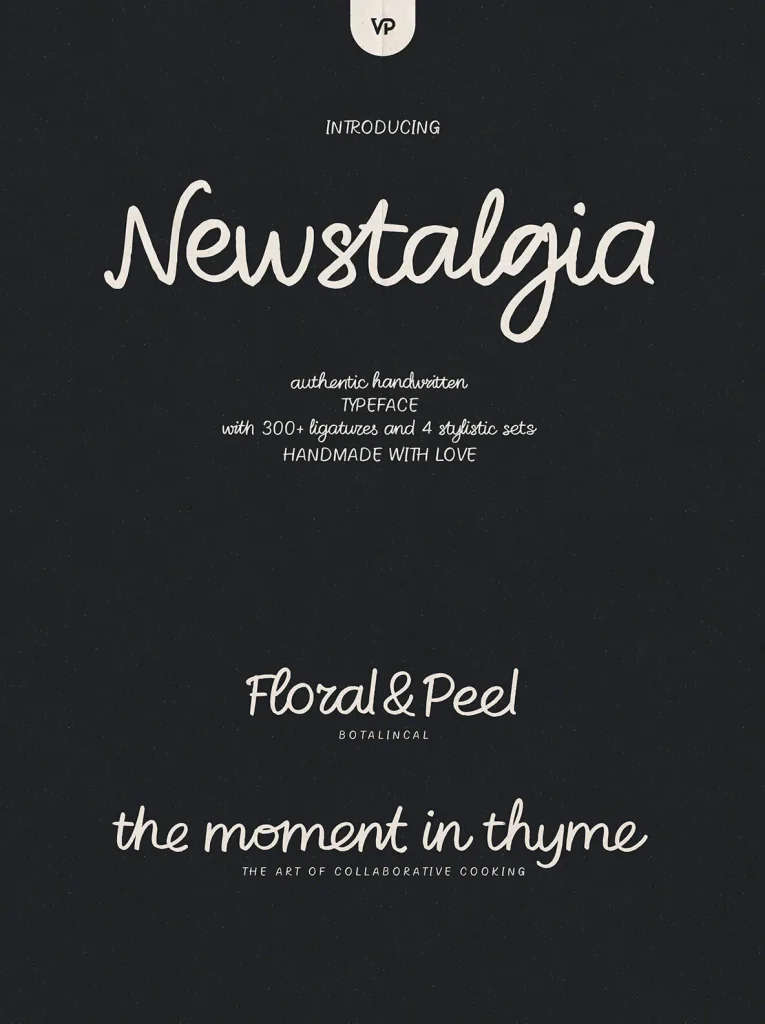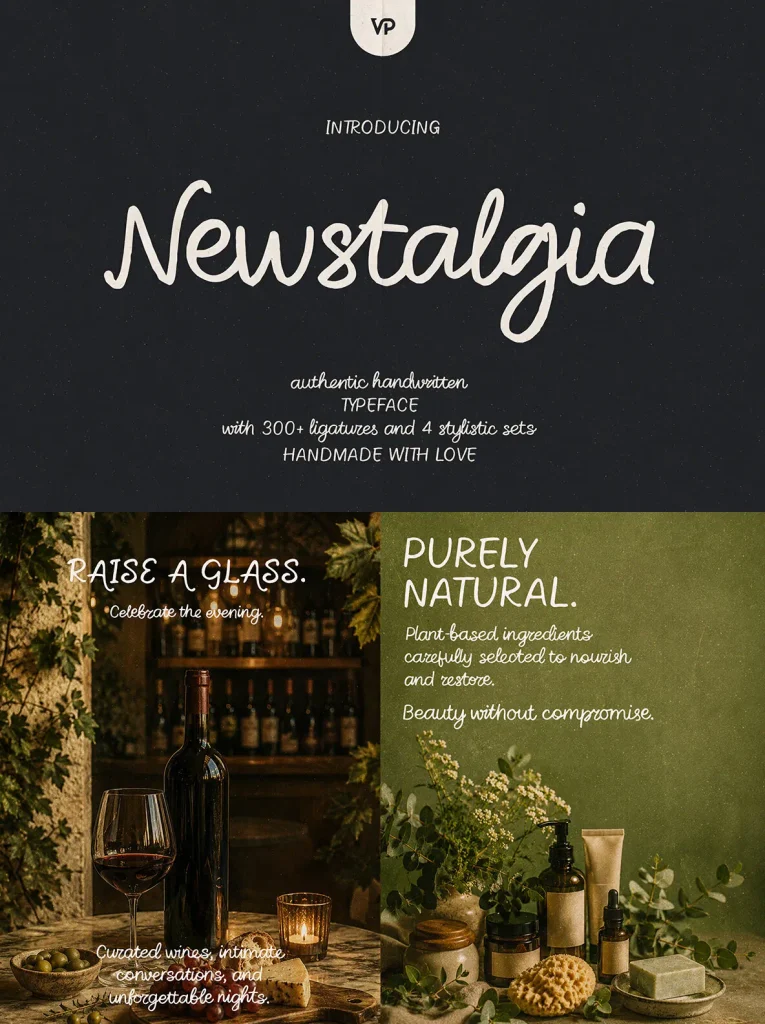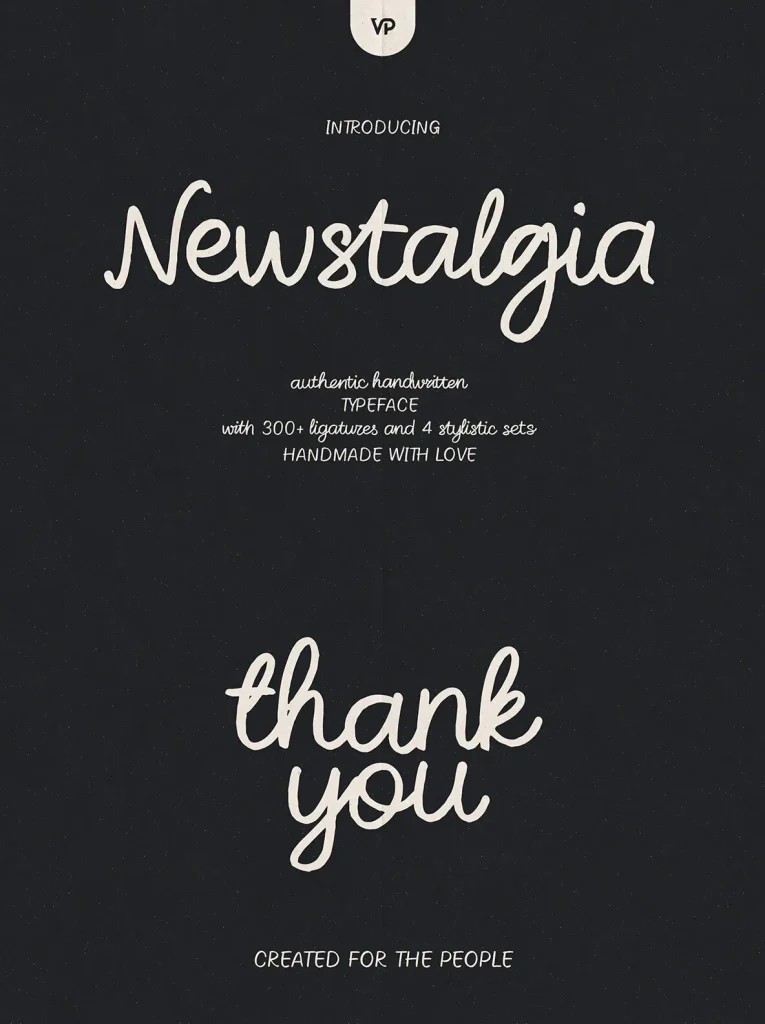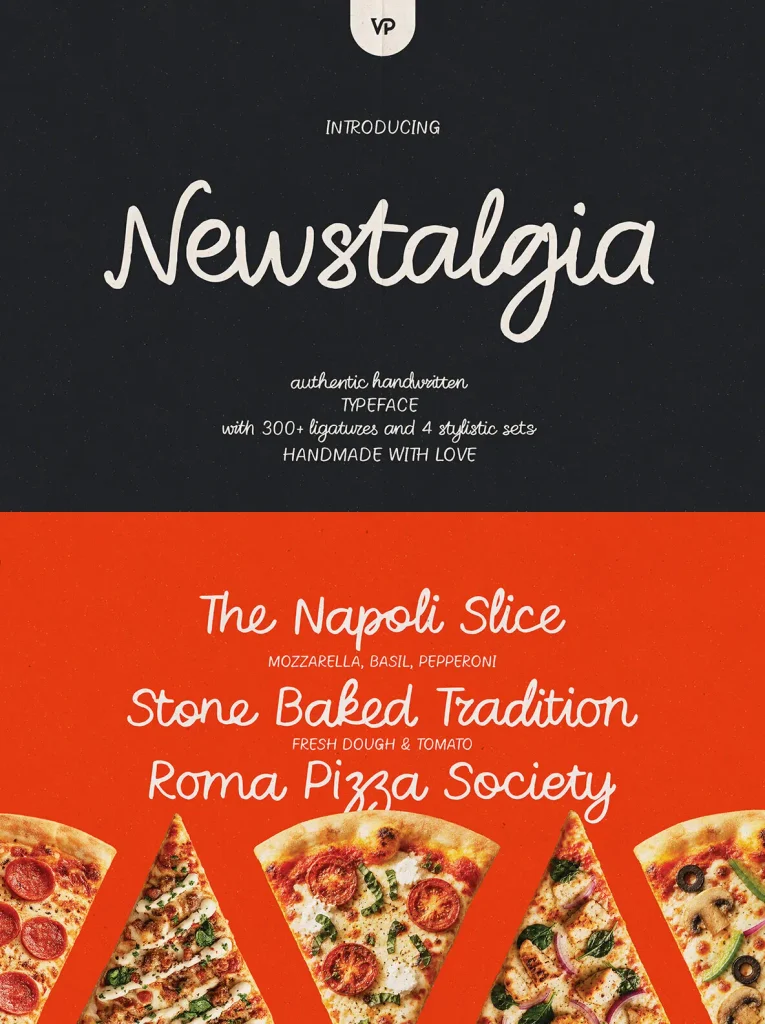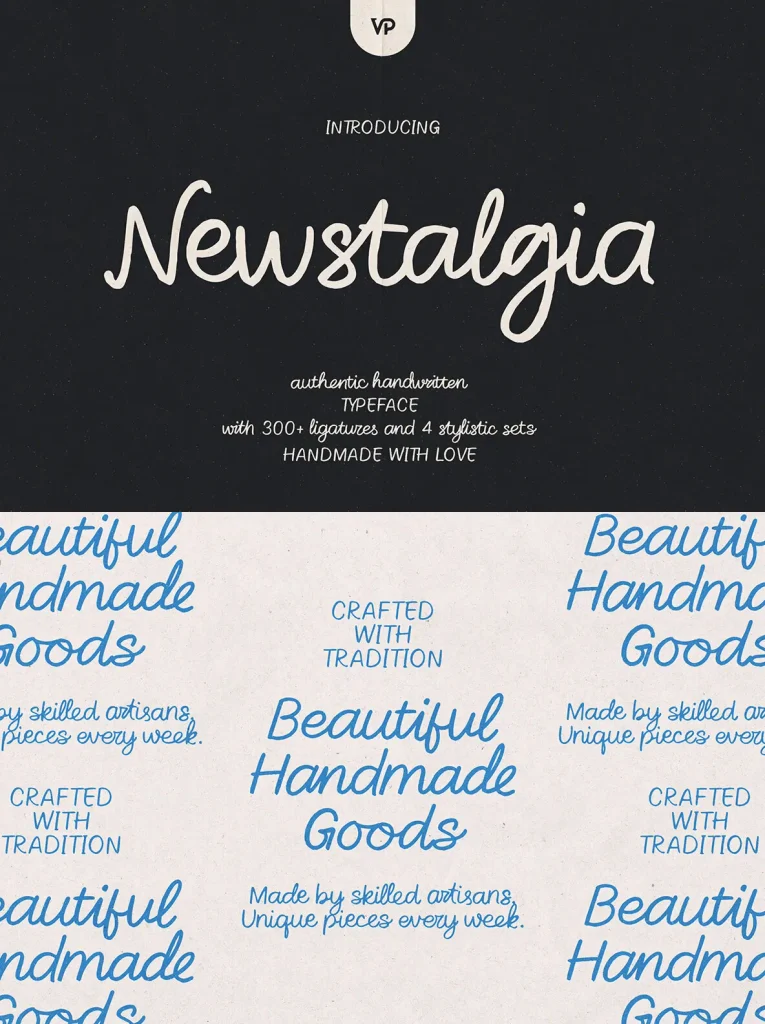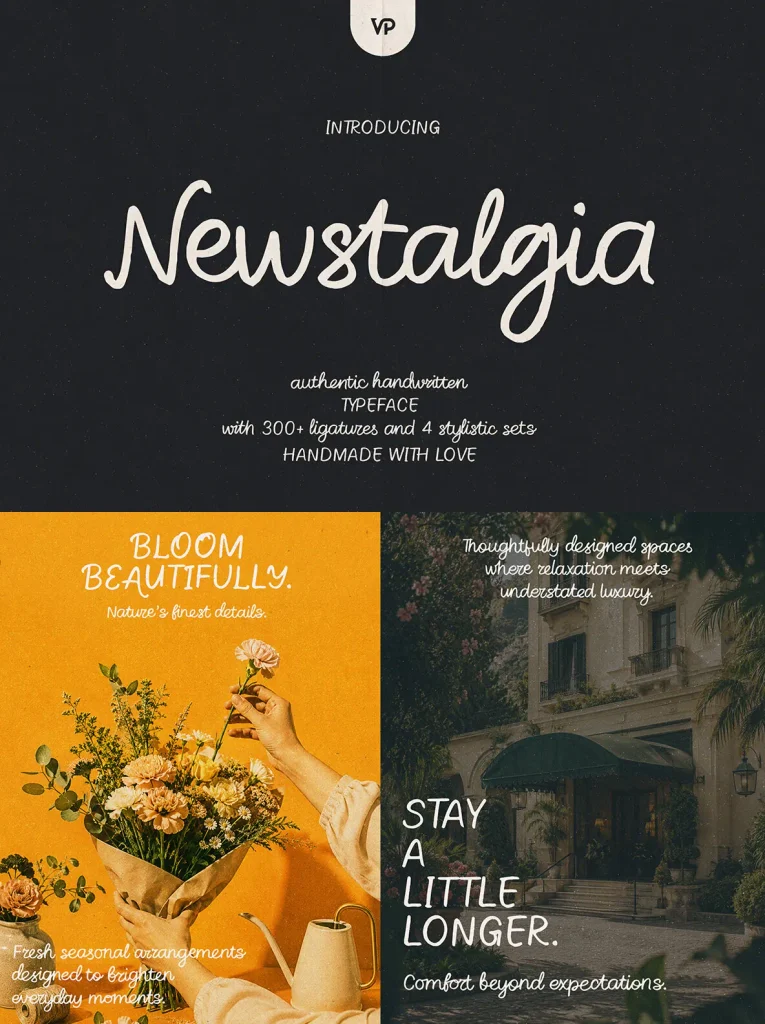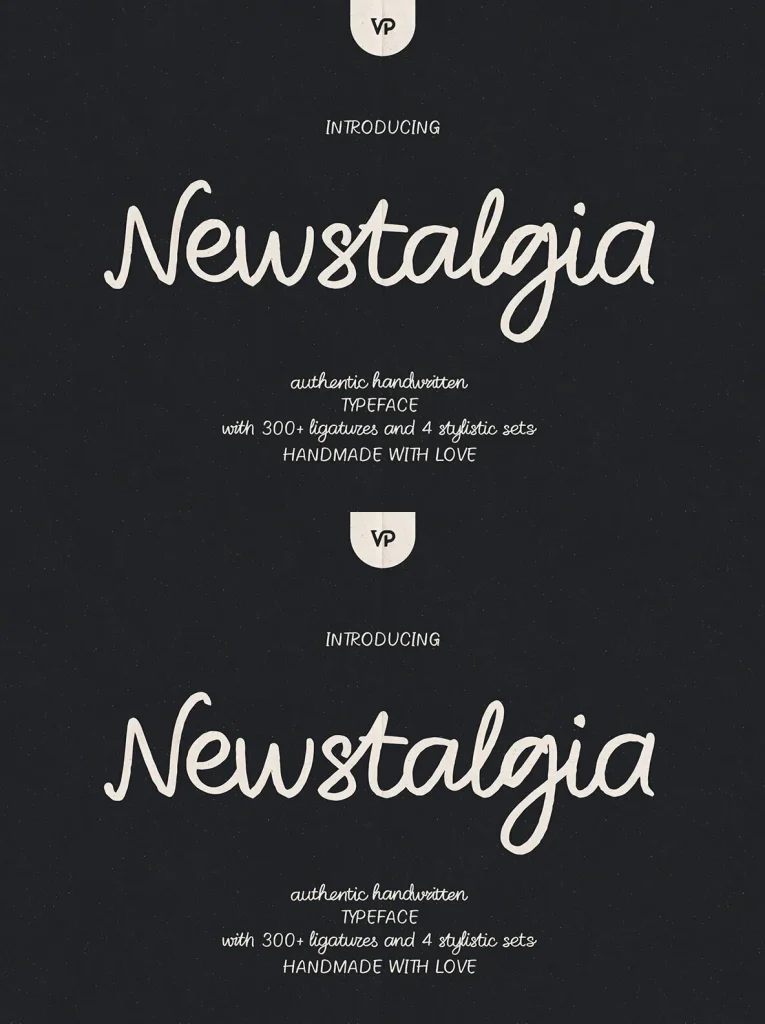
Newstalgia — Handwritten Warmth with Memory
Meet Newstalgia, an authentic handwritten typeface with the warmth, charm, and personality of real handwriting. Inspired by handwritten notes, vintage journals, cozy cafés, boutique branding, and nostalgic storytelling, Newstalgia gives each project a naturally human tone.
Built with careful attention to detail, this versatile script balances effortless readability with organic imperfections. It suits logos, packaging, social media content, book covers, invitations, restaurant menus, and lifestyle branding. The result is a timeless handwritten aesthetic that feels both modern and nostalgic.
Newstalgia includes 300+ handcrafted ligatures for natural letter flow and beautifully realistic handwritten text. Its 4 stylistic
sets
offer subtle, elegant, playful, expressive, and refined variations with just a few clicks. With support for 87+ languages, it also includes a wide range of accented characters for international projects.
Features
Authentic handwritten script font
300+ handcrafted ligatures
4 unique stylistic sets
Uppercase & lowercase characters
Numerals and punctuation
Multilingual support (87+ languages)
OpenType features
Smooth natural letter connections
Perfect for branding and editorial design
Perfect For
Logo Design
Boutique Branding
Packaging Design
Book Covers
Restaurant & Café Branding
Social Media Graphics
Instagram Posts
Product Labels
Wedding Invitations
Greeting Cards
Lifestyle Brands
Fashion Projects
Handmade Products
Craft Businesses
Editorial Design
Photography Watermarks
Quotes & Posters
Newstalgia is more than a font; it is a storytelling tool. Every curve, connection, and ligature was drawn to convey emotion, authenticity, and human connection. Use it for a premium brand identity or a heartfelt personal project when your words need to feel personal, memorable, and beautifully imperfect. Add warmth, nostalgia, and handcrafted elegance to your next creative project with Newstalgia.